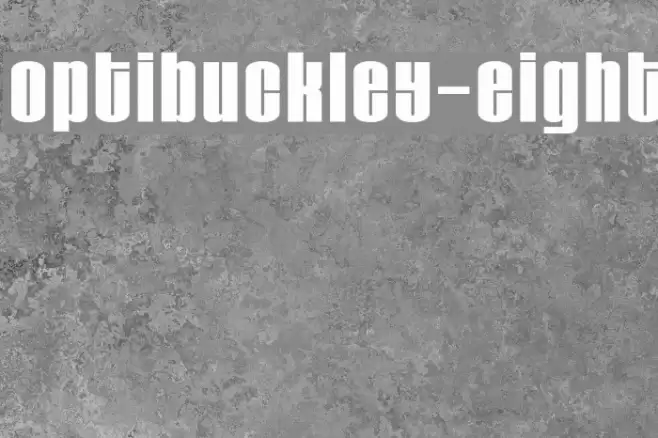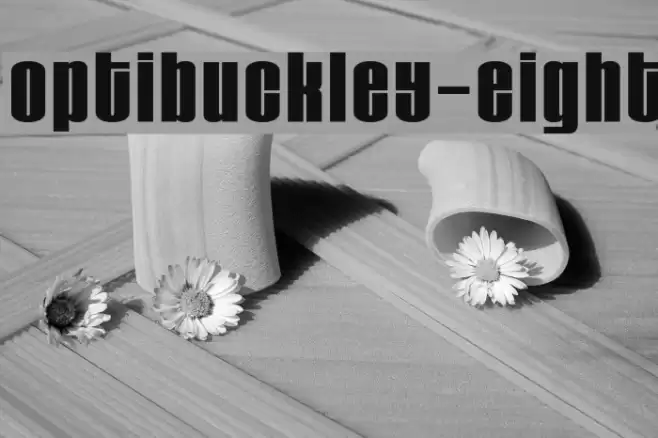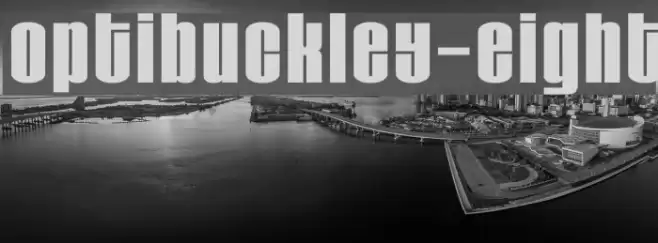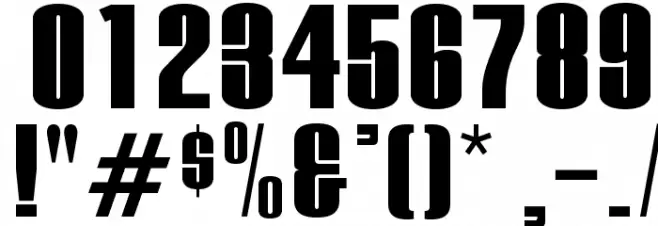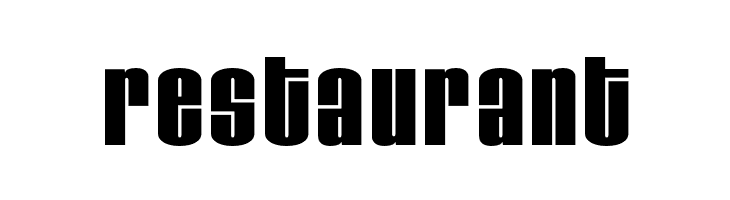
OPTIBuckley-Eight Font
OPTIBuckley-Eight Description
This font features a bold and striking design with thick, block-like characters that convey a sense of strength and impact. The letters are uniformly wide, creating a cohesive and powerful visual presence. The uppercase and lowercase letters maintain a consistent style, with minimal variation in stroke width, contributing to a solid and robust appearance. The numbers and special characters are equally bold, ensuring readability and emphasis. This font's geometric structure and heavy weight make it ideal for attention-grabbing headlines and titles.
A bold, block-like font with thick, uniform characters for impactful design from Uncategorized fonts.
- Proposed Projects: Ideal for posters, headlines, branding, and any design requiring a strong visual impact.